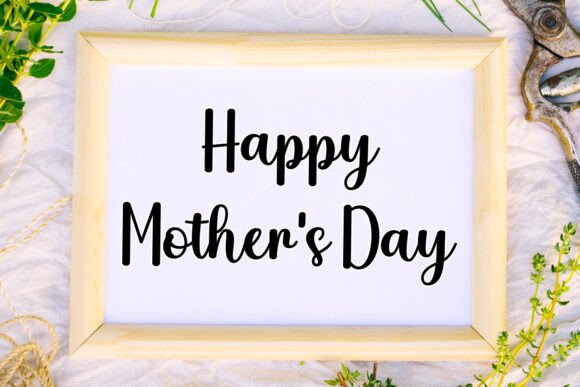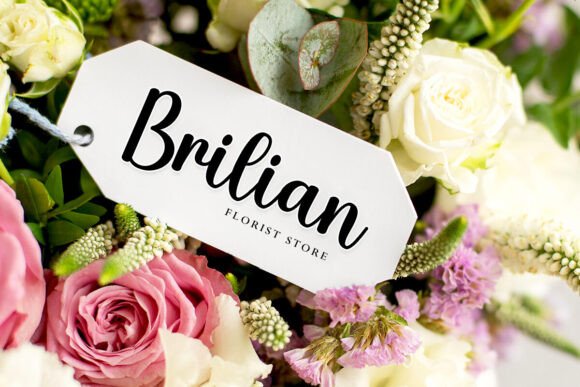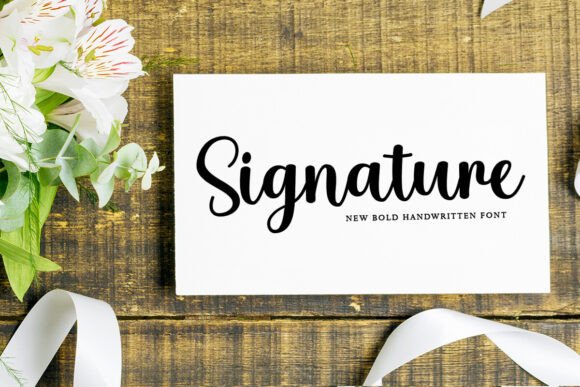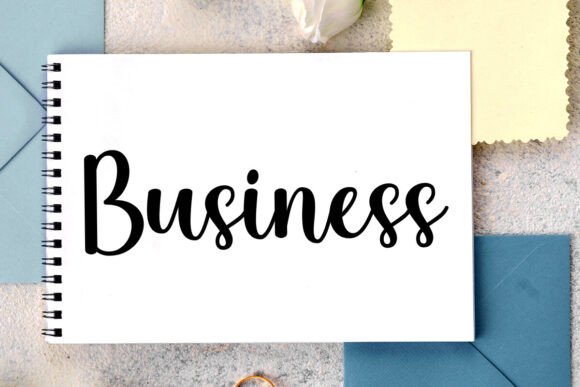
Adding a Touch of Magic to Your Designs
As a designer, there’s nothing quite like the thrill of creating something new and special. It’s that moment when a project starts to come together, and you can feel the excitement building. You’ve got your colors, your layout, and your typography – and then, you add the finishing touches. For many designers, the perfect font can make all the difference.
That’s where the Disney Handwritten Font comes in – a sweet and cursive handwriting font that’s sure to add a touch of magic to your designs. Whether you’re working on a branding project, a wedding favor, or a marketing promotion, this font is perfect for adding a fun and romantic touch. Its soft, elegant lines make it a valuable addition to any designer’s toolkit.
With the Disney Handwritten Font, you can create designs that are both fancy and casual, perfect for a wide range of projects. So why settle for a plain font when you can add a little bit of Disney magic to your work?
Key Features of Disney Handwritten Font
- Unique Characteristics: Whimsical, hand-drawn feel with subtle imperfections, evoking a sense of nostalgia and playfulness
Review of Disney Handwritten Font
I must say, I was really excited to dive into the Disney Handwritten Font. As a designer, I appreciate the charm and whimsy it brings to any project. ✨ The font’s unique, handwritten style is reminiscent of classic Disney illustrations and adds a touch of nostalgia to any design.
Here are some of the things I like about this font:
- It’s perfect for creating a sense of warmth and approachability.
- It’s great for titles, headings, and other text elements that need a little extra personality.
- It’s very versatile and can be used in a wide range of projects, from children’s books to advertising campaigns.
- The font may not be suitable for projects that require a more formal or professional tone.
- It may be a bit too playful for certain audiences, such as corporate or financial clients.
- The font’s irregularities can make it difficult to read at smaller font sizes.
Overall, I think the Disney Handwritten Font is a great addition to any designer’s toolkit. While it may have some limitations, its unique style and charm make it a valuable asset for any project that needs a little extra personality.
Tips for Getting the Most Out of the Disney Handwritten Font
Use the Disney Handwritten Font for titles, headings, and emphasis to add a touch of whimsy and playfulness to your designs.
Experiment with different font sizes and colors to create visual interest and hierarchy in your designs.
Combine the Disney Handwritten Font with other fonts and graphics to create a unique and eye-catching visual style.
Alternatives to Disney Handwritten Font
Great Vibes is a beautiful, elegant script font that’s perfect for adding a touch of sophistication to your designs. It’s ideal for use in logos, branding, and packaging materials. Great Vibes has a more refined and polished look compared to Disney Handwritten Font, making it a great choice for high-end designs.
Carolyna Pro is a modern script font that’s designed for use in various applications, including logos, headings, and body text. It’s a great alternative to Disney Handwritten Font for designers who want a more contemporary look. Carolyna Pro has a more fluid and dynamic feel, making it perfect for use in digital designs.
Can I customize the Disney Handwritten Font to create new styles or variations?